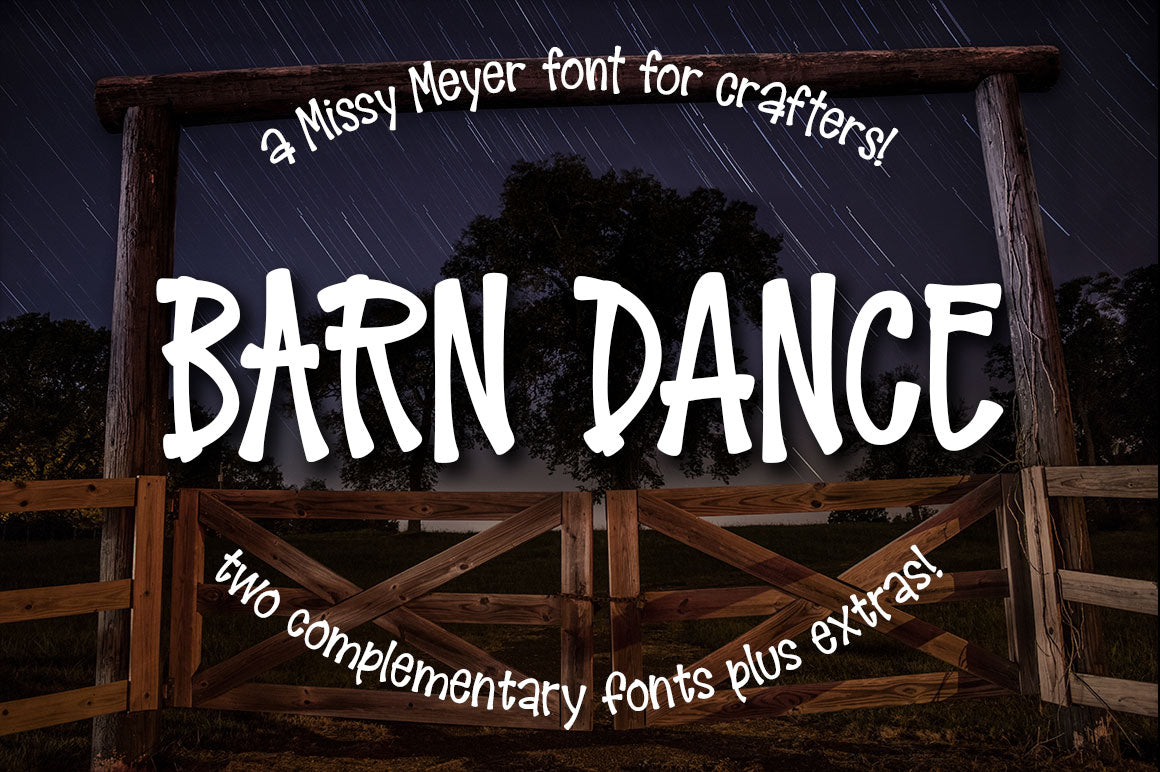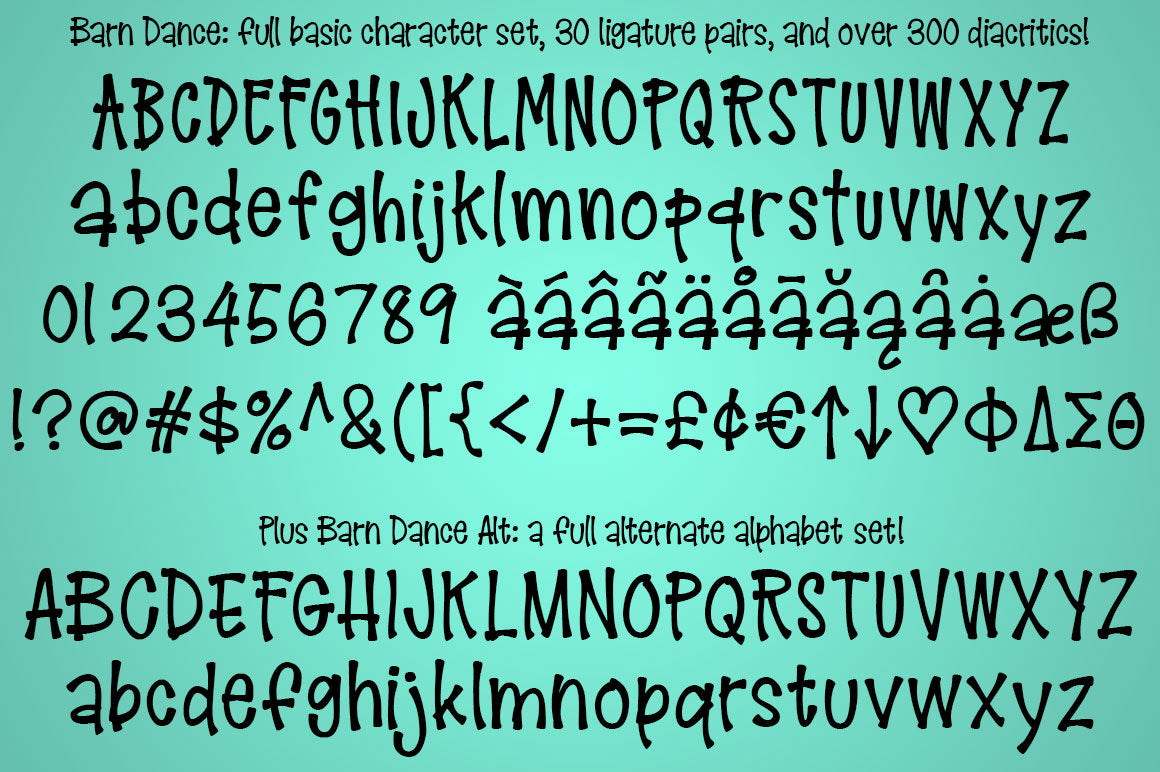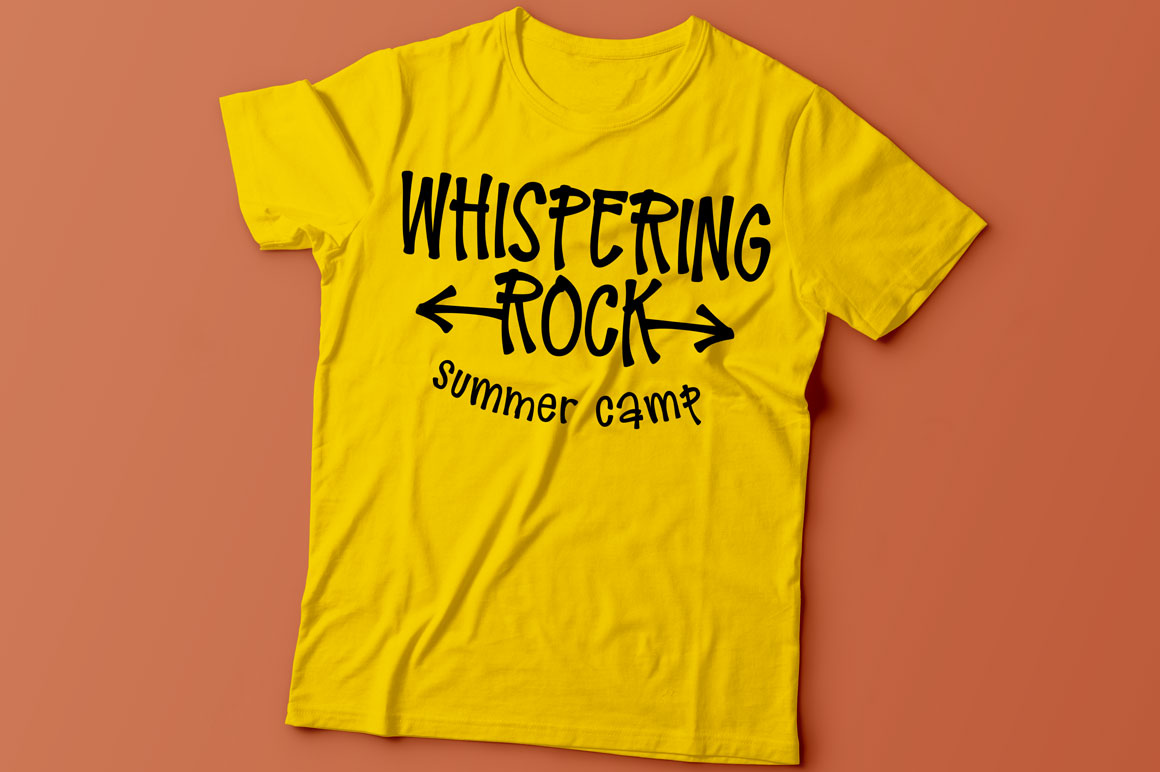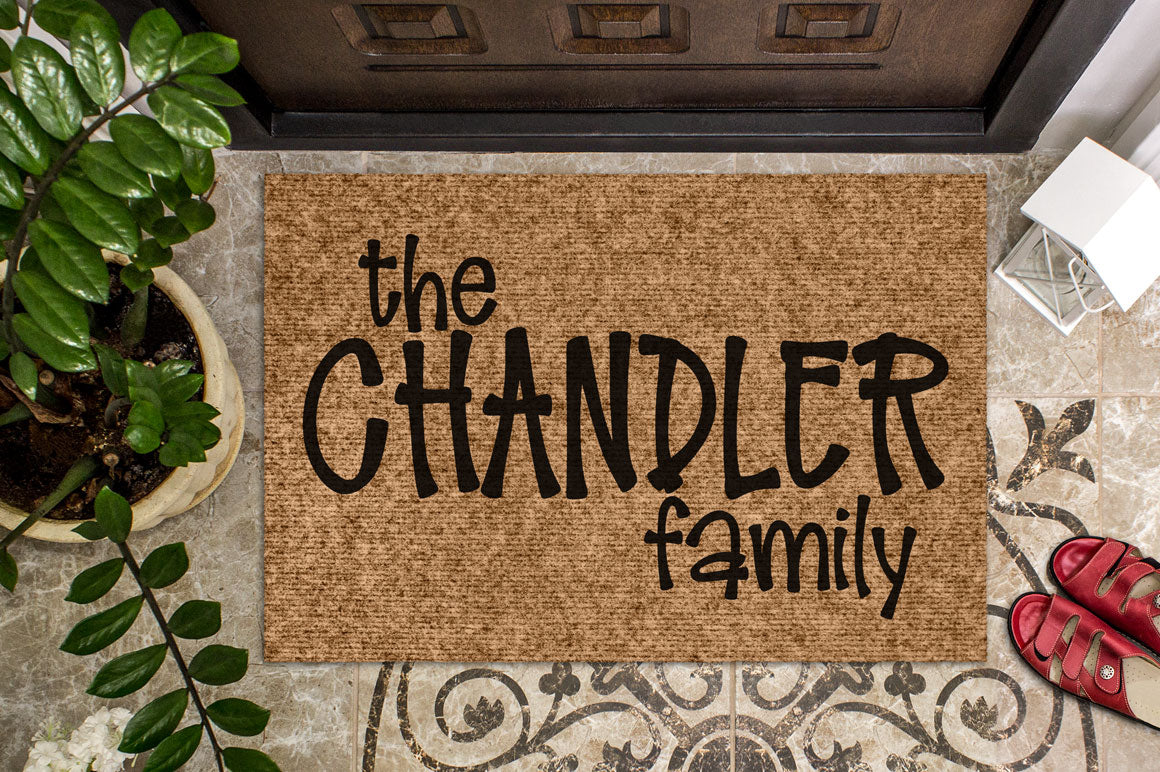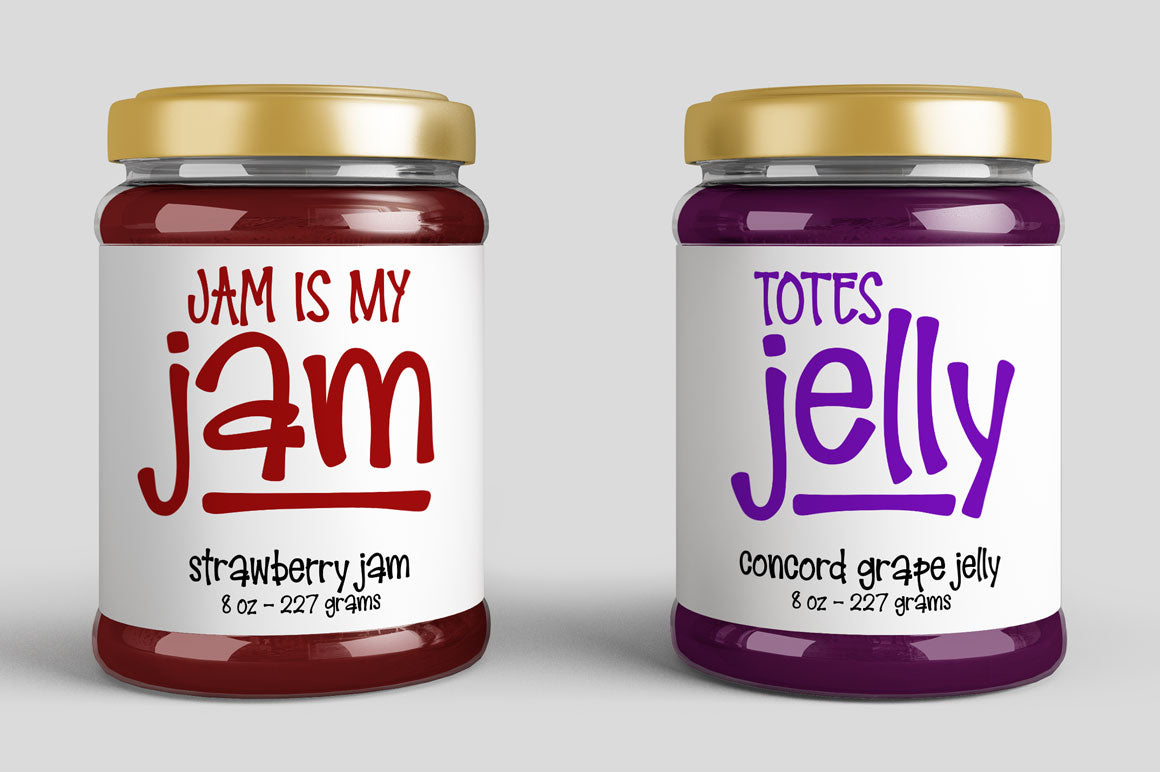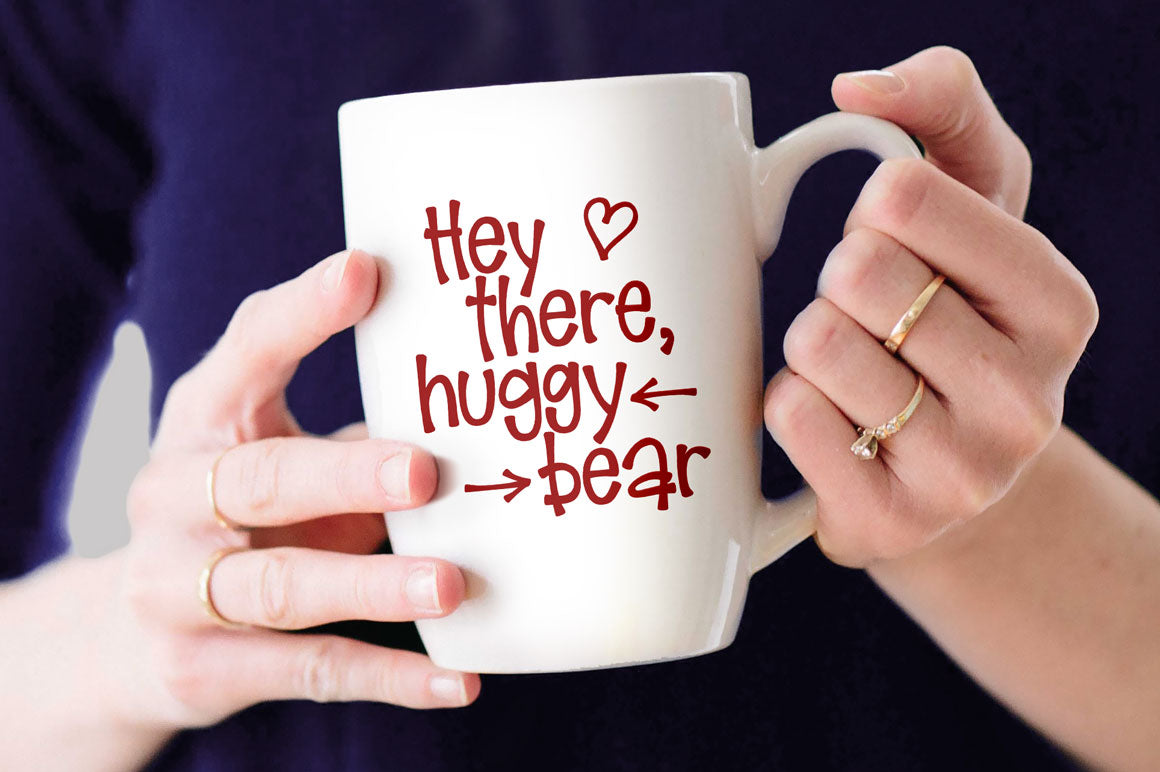
I'll admit right off the bat here -- I've never been to a barn dance. I don't even know if they still do barn dances, or if that's something out of the musical Oklahoma! or something. But this font gave me kind of a homey, rustic feel, so the name felt right!
Like many of my fonts, this one has been refined to keep crafters in mind -- smoothed curves and reduced nodes, for easy cutting and printing. It's also packed with over 600 characters total! The usual alphabet, numbers, and punctuation, plus 30 double-letter ligatures, over 300 diacritics, and a full second alphabet coded in as Stylistic Alternates.